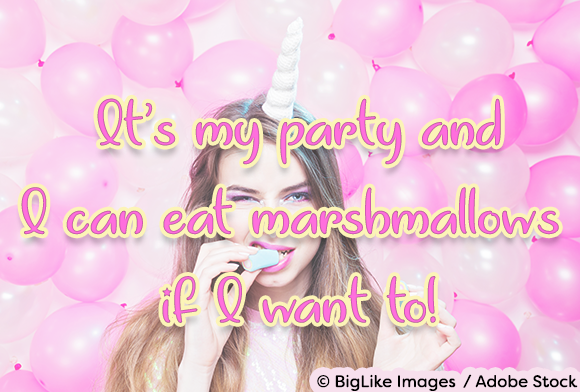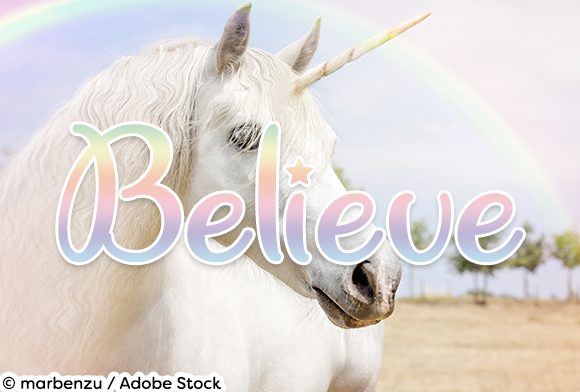
Unicorn Giggles Font
db-ku.com - Script & Handwritten -- Unicorn Giggles is a fun calligraphy handwriting font that will add magic and wonder to your projects!